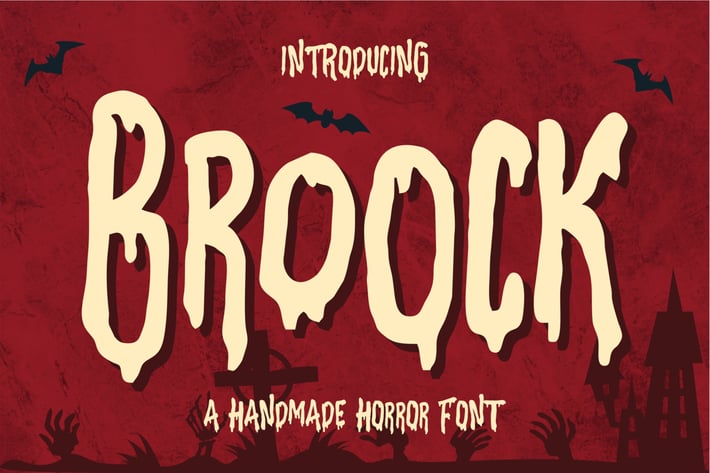
Broock - Handmade Horror Font
Macademia
Broock is perfect to use for Logotype, Letterhead, Poster, Apparel Design, Label and etc.
The alternative characters were divided into several features such as Stylistic Alternates and Ligature.